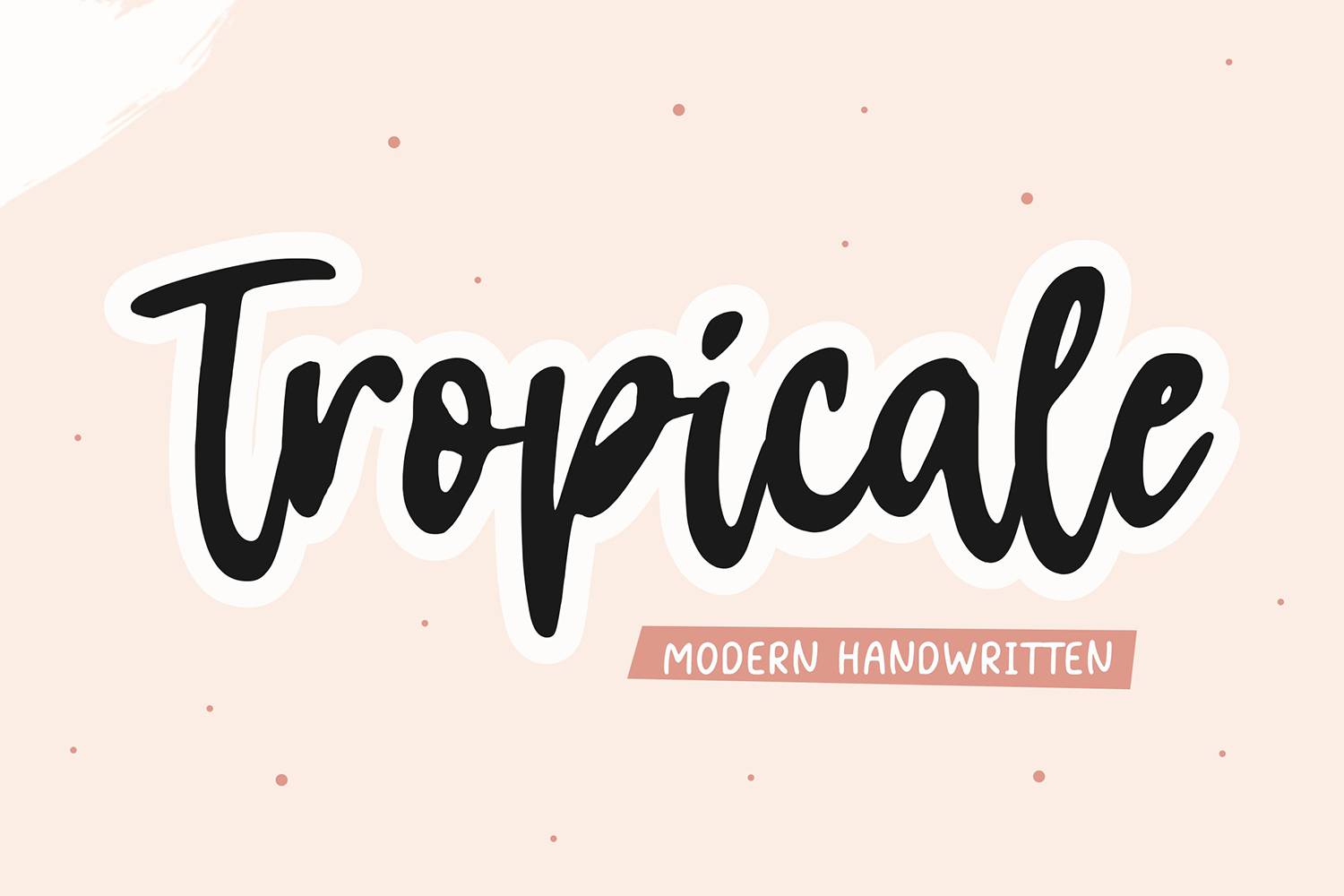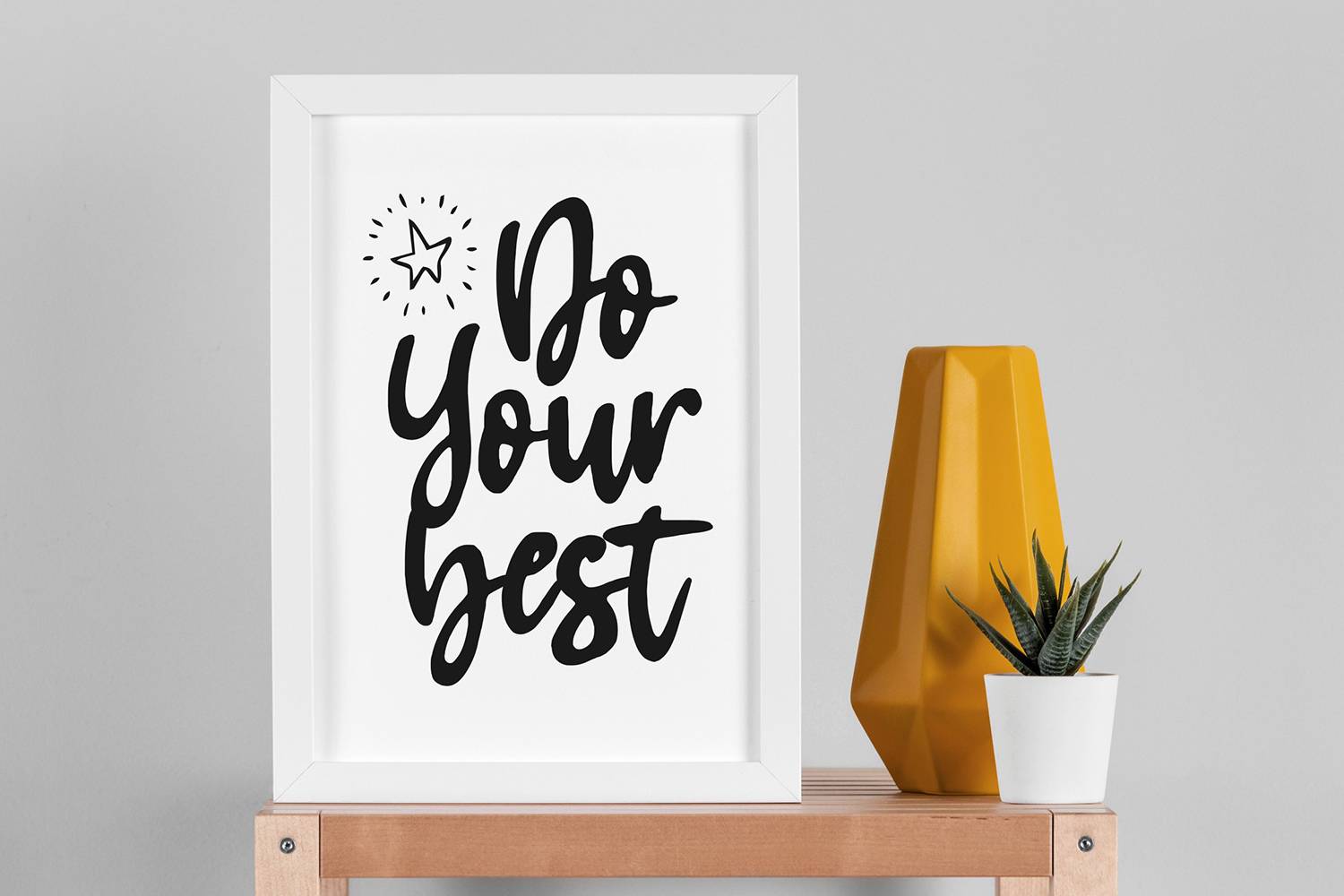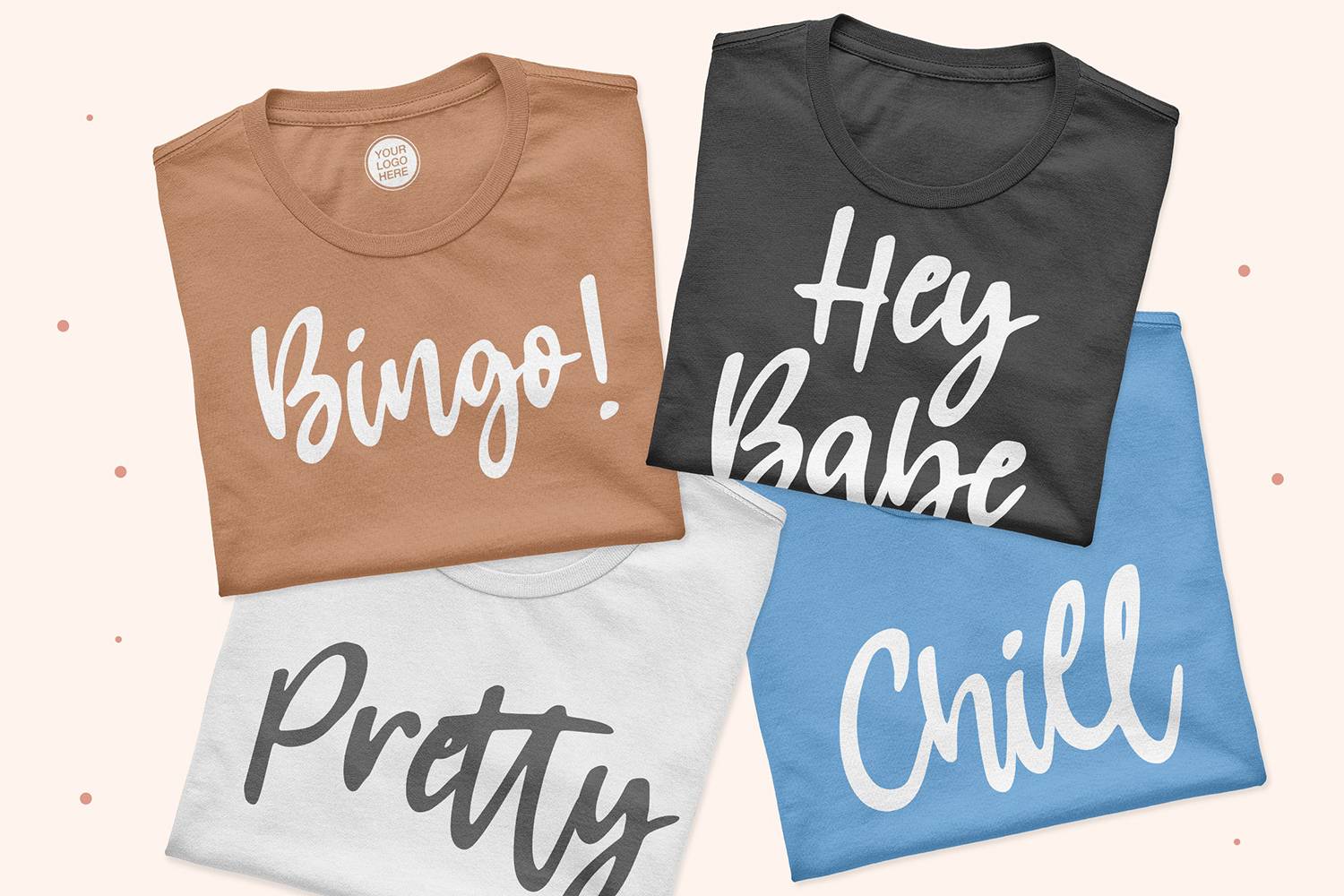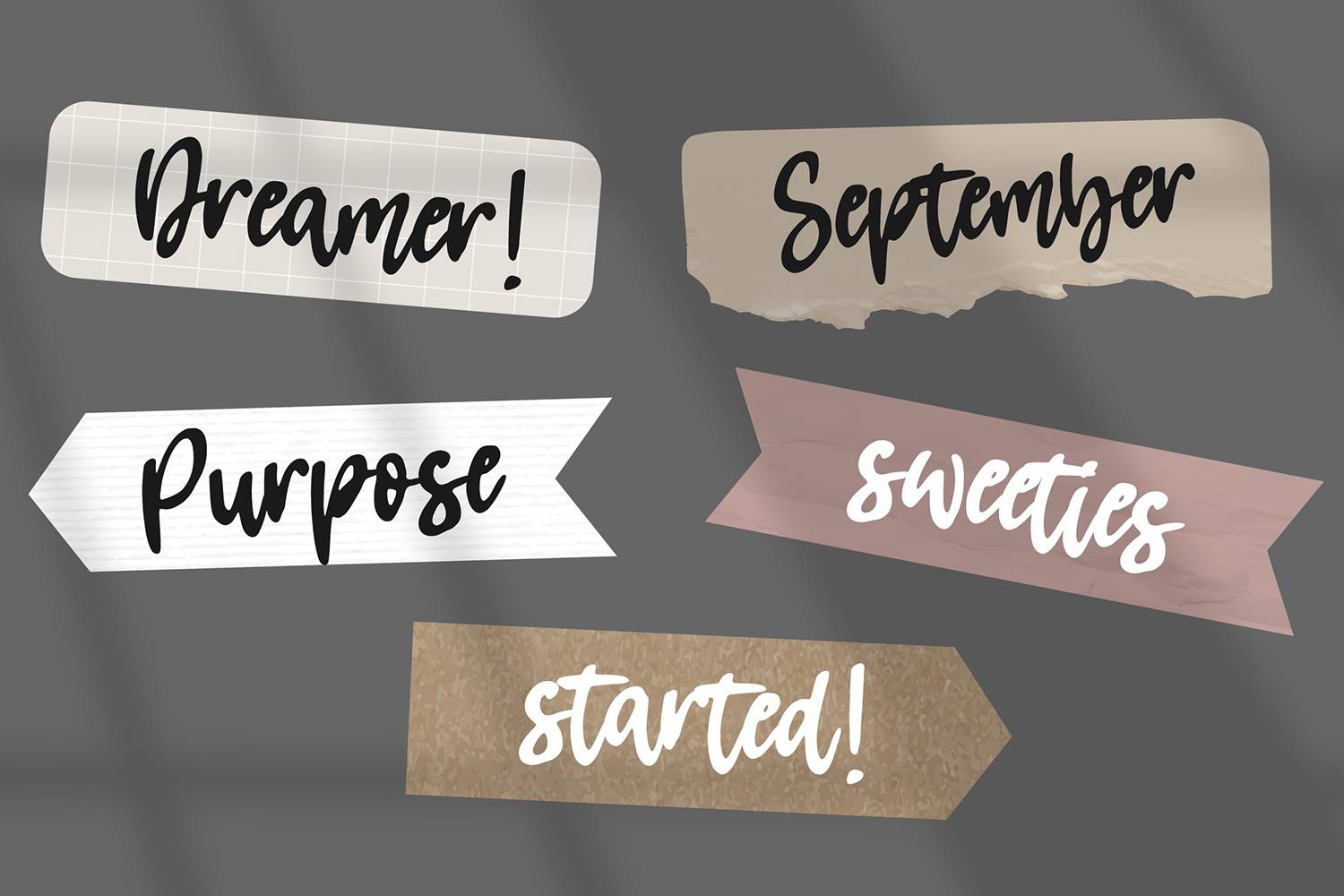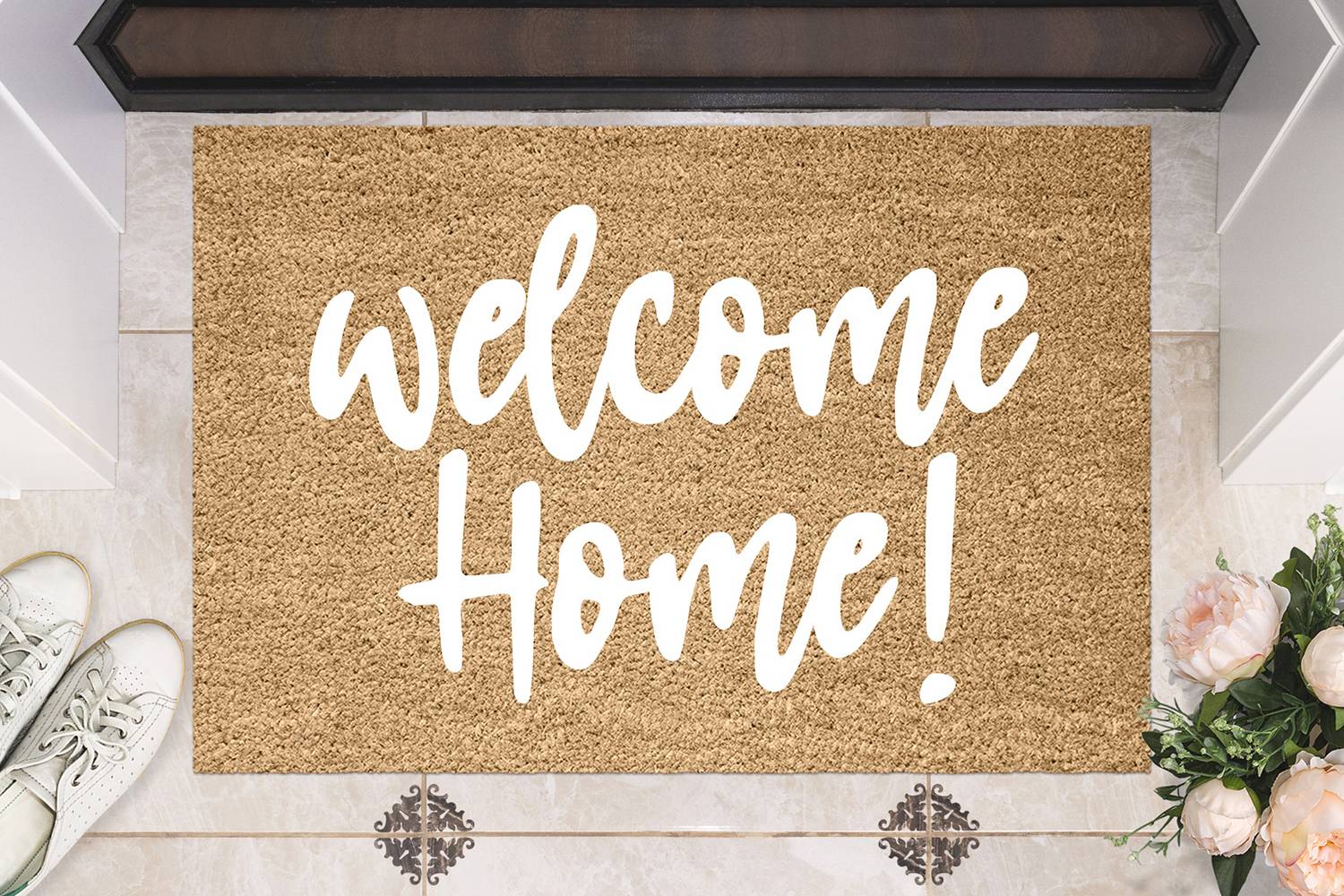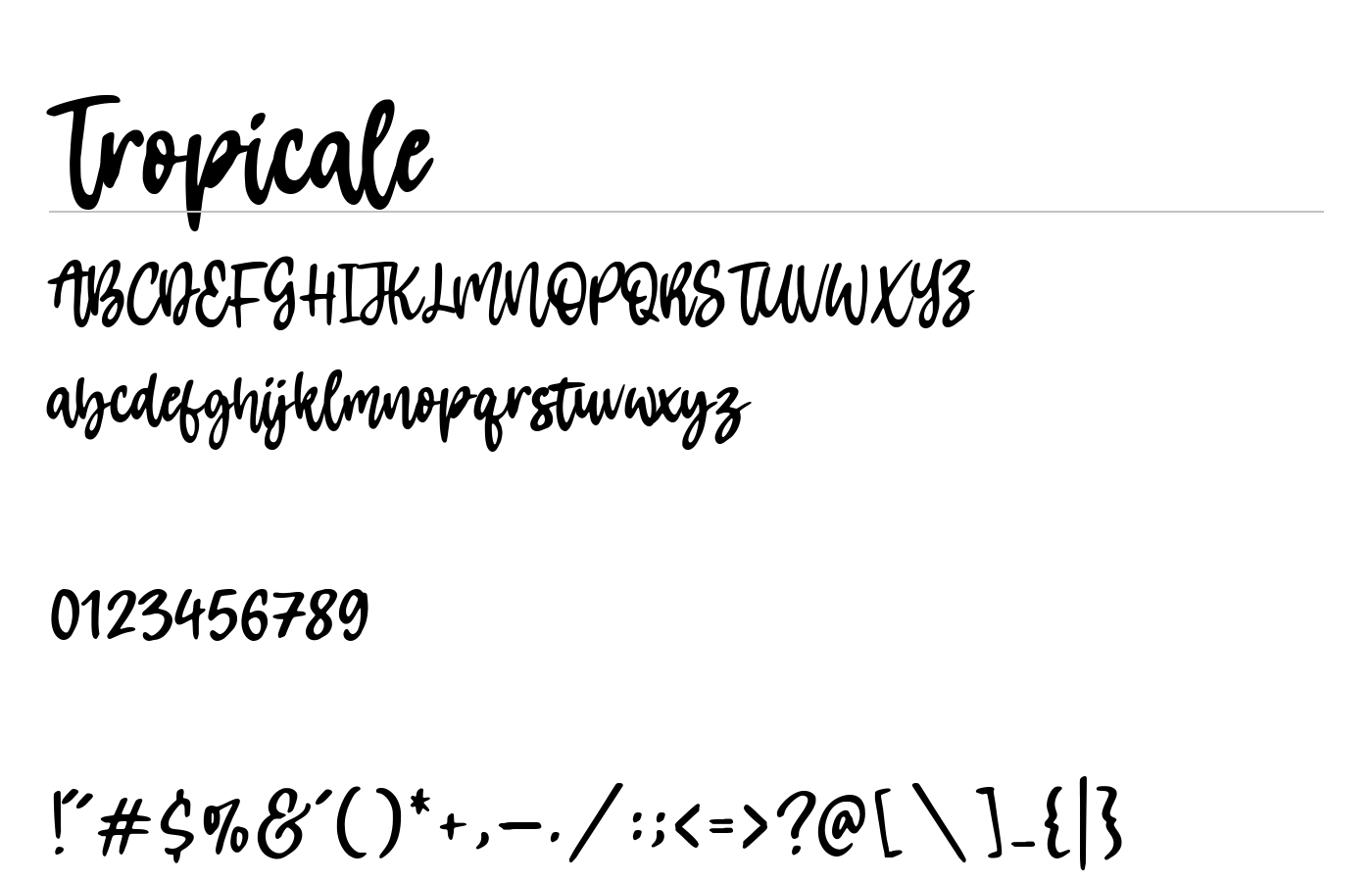
Tropicale is a playful, casual script font with a friendly and hand-drawn feel, featuring smooth, rounded strokes and moderate contrast. Its lively letterforms and informal style make it ideal for creative branding, invitations, and lifestyle designs where a warm, approachable vibe is desired. This font works best in headlines and logos that want to convey energy and personality without sacrificing readability.
Tropicale Font